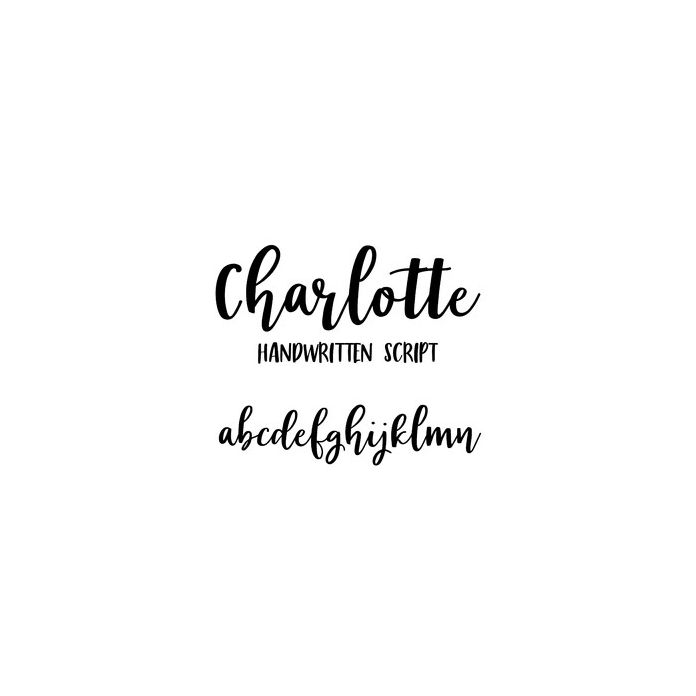
Charlotte Font
Charlotte is a sweet and friendly handwritten font. Its natural and unique style makes it fitting for a variety of designs. Total glyph count: 172